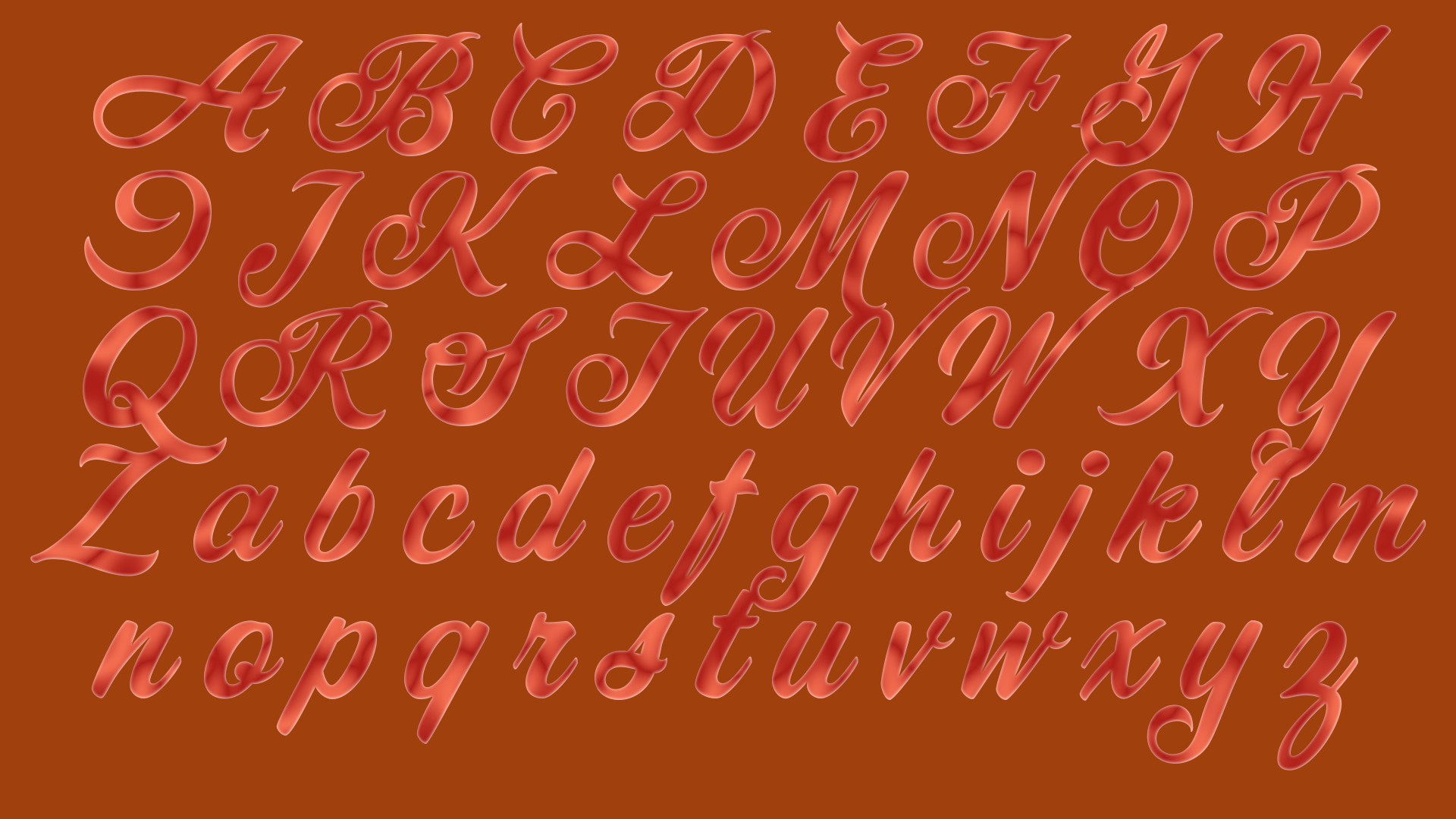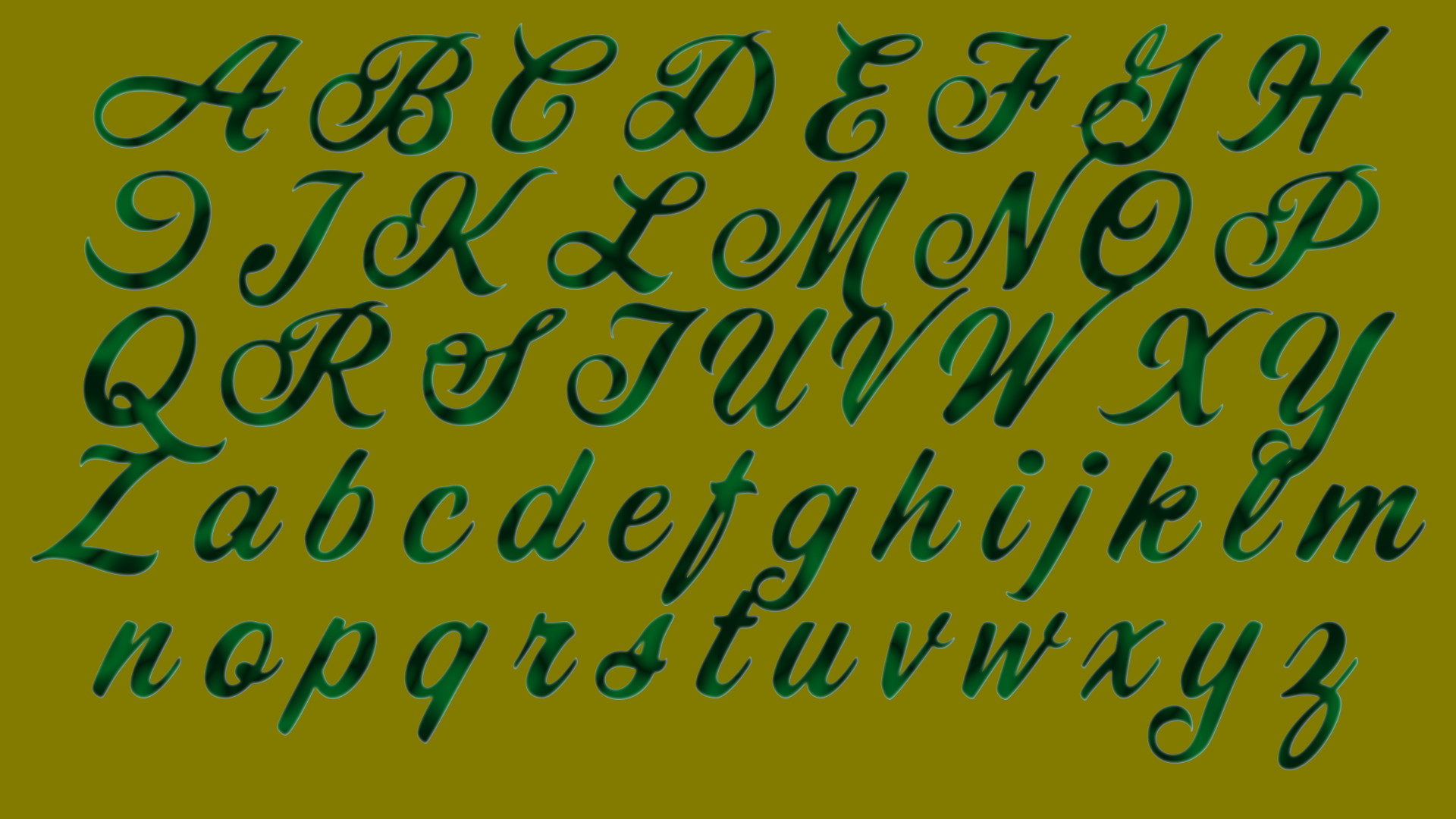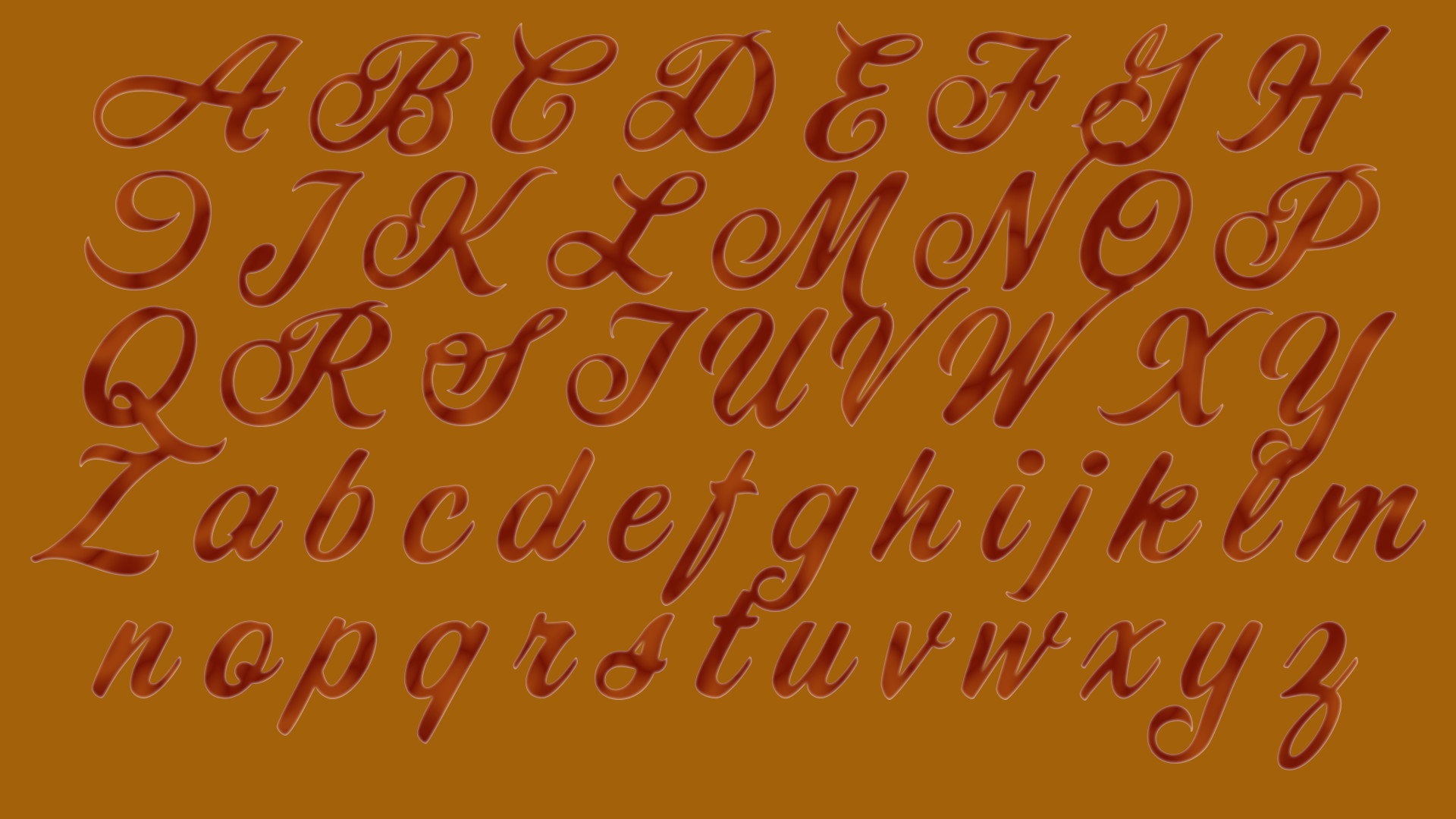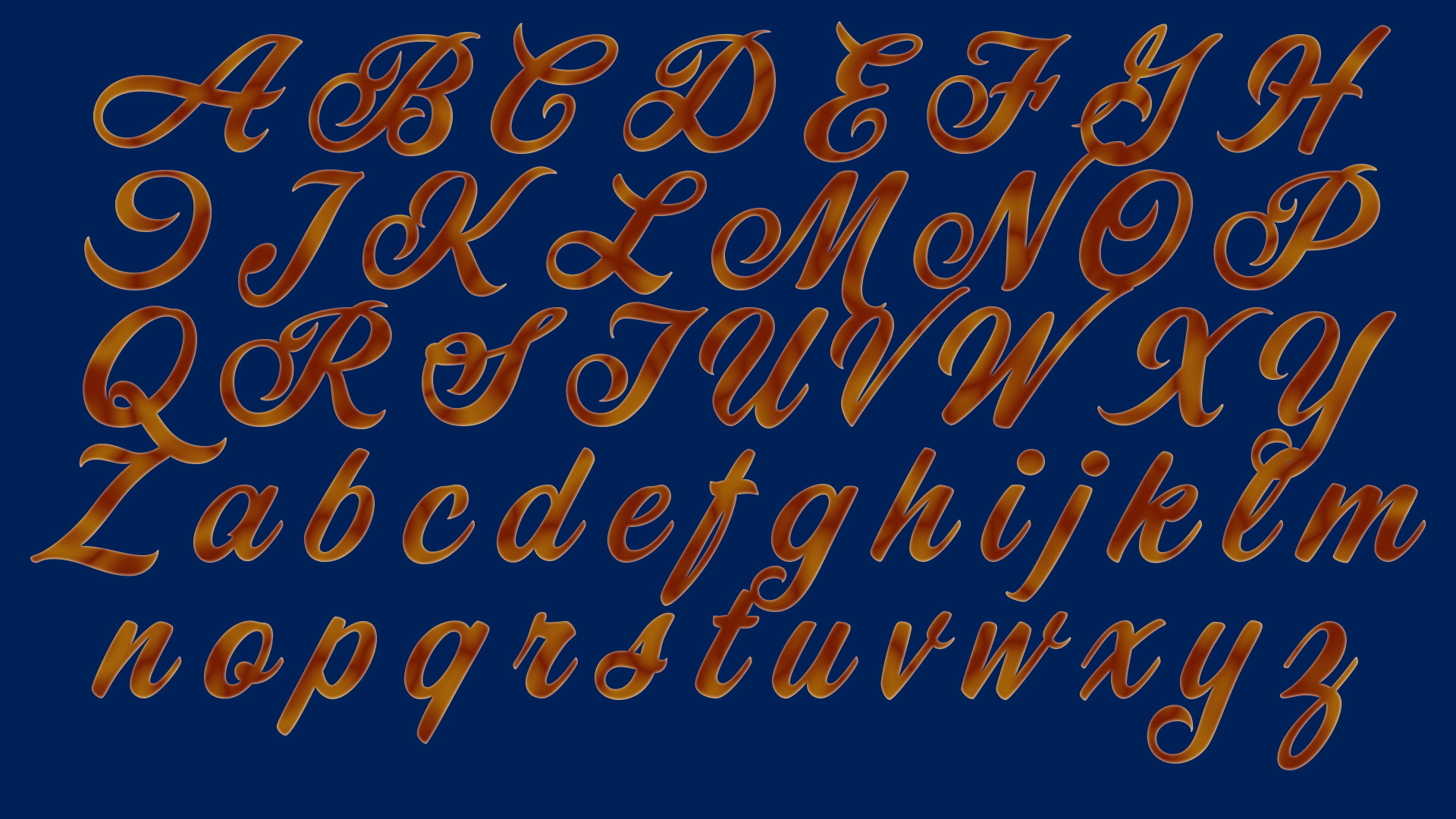
TIGER GAME ASSETS FONT STYLES VOL.10
This ASSETS Pack includes the basic font style elements for the User Interface for game design, You can use these as buttons, also you can customize your favorite color.
This ASSETS Pack includes the basic font style elements for the User Interface for game design,
You can use these as buttons, also you can customize your favorite color.